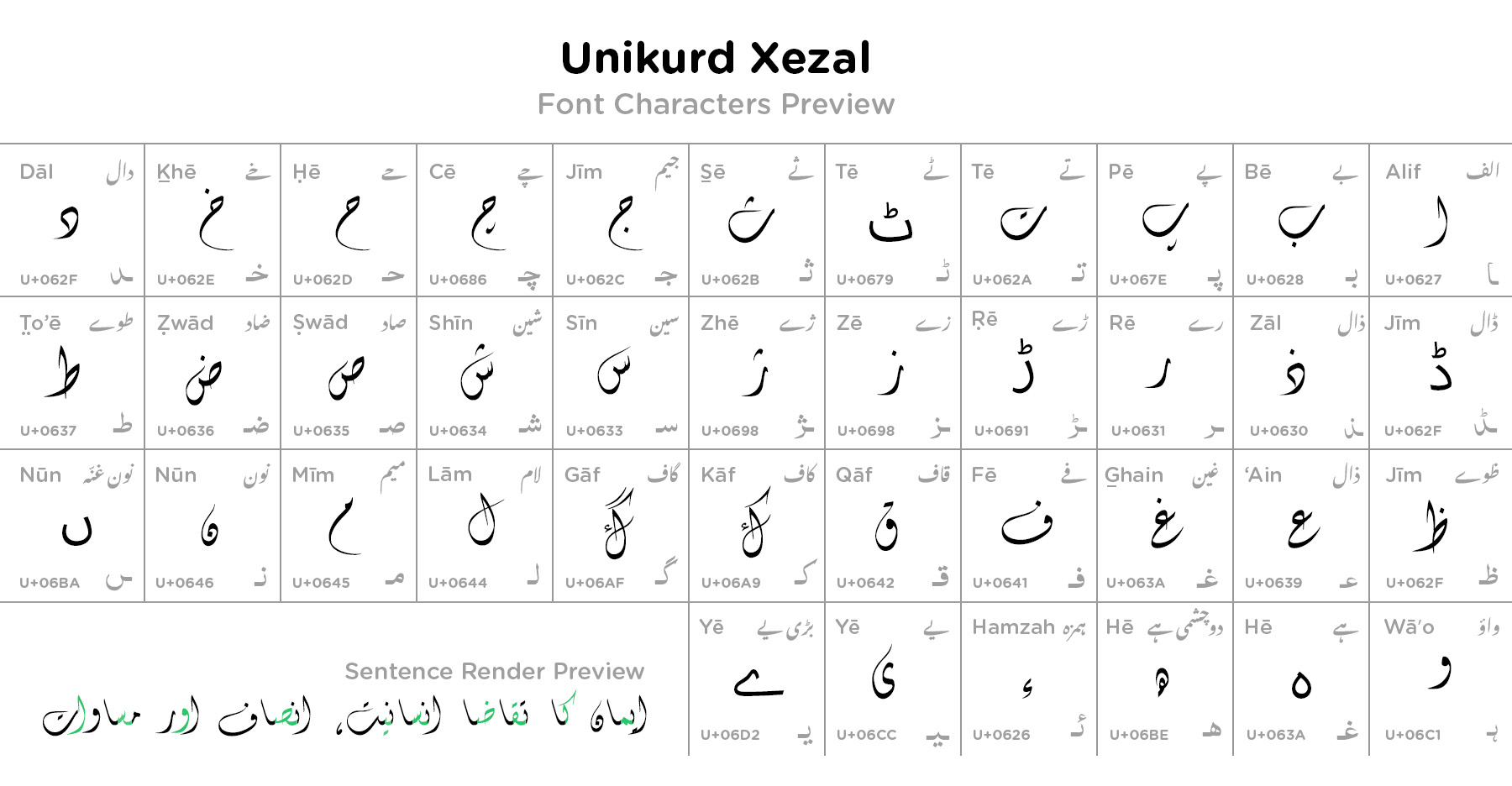
Unikurd Xezal, designed by Bardaqani, Ardawan, and Azad and released by the Kurd It Group on October 26, 2012, is a cursive decorative Kurdish font characterized by contrasting thick and thin letterforms with delicate pointy edges. Inspired by the Divani script, this font embodies the elegance of calligraphy, with connected intertwining letters and intricate details. With 358 characters and 339 glyphs, the font offers extensive language support, including Arabic, Latin, Urdu, Kurdish, Persian, and more. Its moderate thickness, which varies throughout, coupled with delicate strokes, ensures high legibility and aesthetic appeal.
Considering the practicality of this font, it only excels in short text applications due to its intricate nature. Its highly cursive style, featuring floral patterns in some letters and long flowing tails, gives it an overall elegant appearance, perfect for branding, calligraphy, logos, Quran writing, invitations, and more. Unikurd Xezal’s compatibility across various Unicode blocks, including Basic Latin, Arabic, and Geometric Shapes, enhances its versatility and usability in different design projects. Whether used for formal or decorative purposes, this font adds a touch of superiority and beauty to any typographic composition.